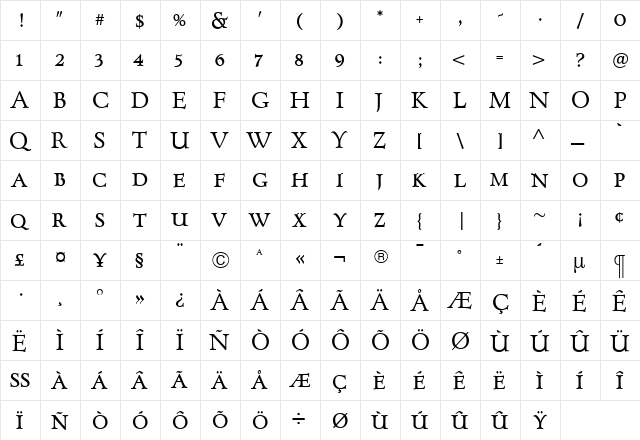
ForumTitlingBold Roman
Design Context for ForumTitlingBold Typeface
ForumTitlingBold takes a measured approach to typography — its balanced proportions and neutral character make it a reliable workhorse for both digital and print work. Its bold stroke weight gives it real presence on the page.